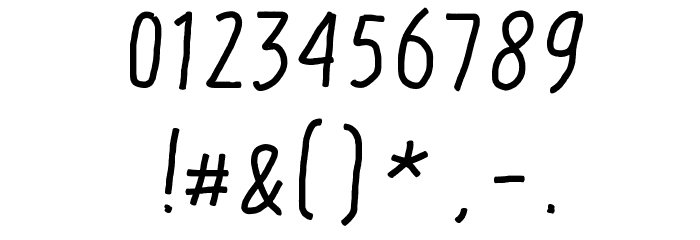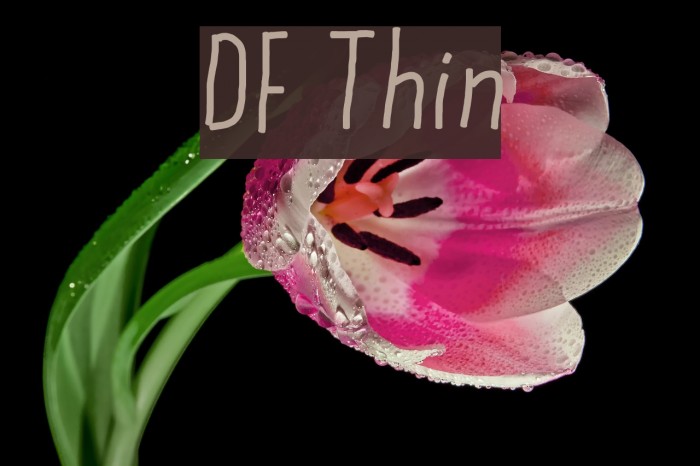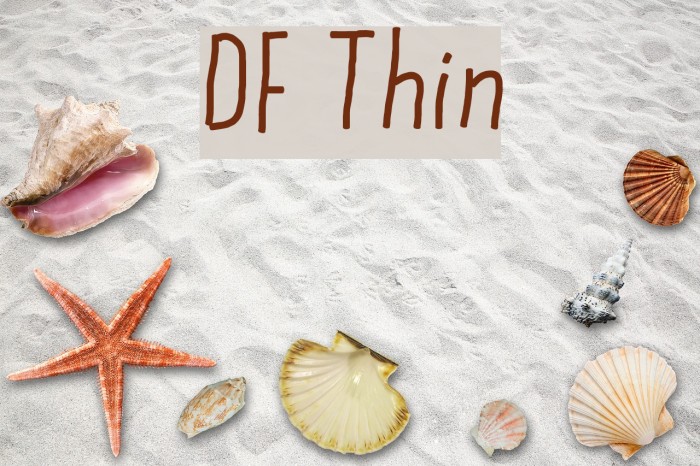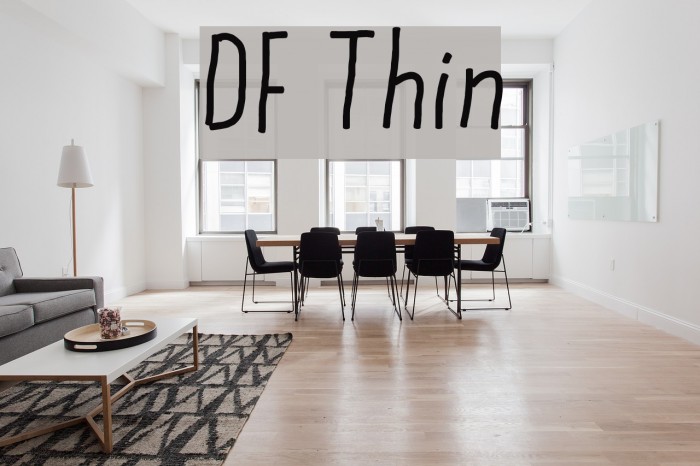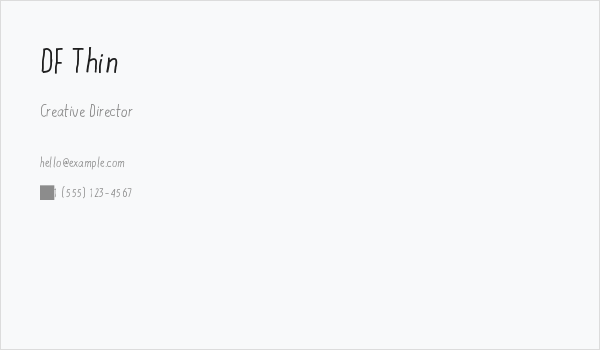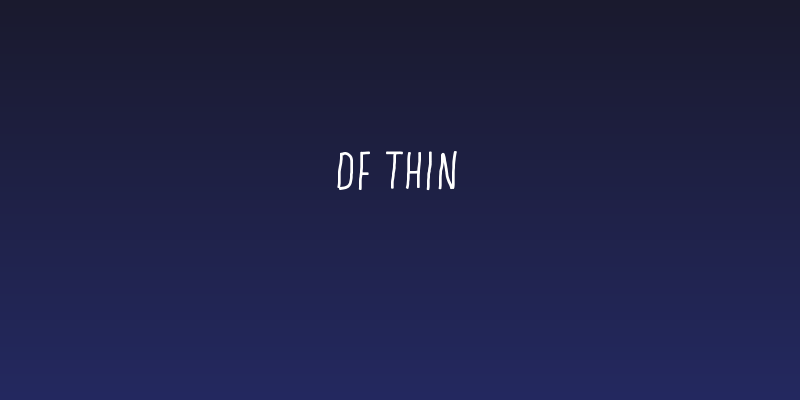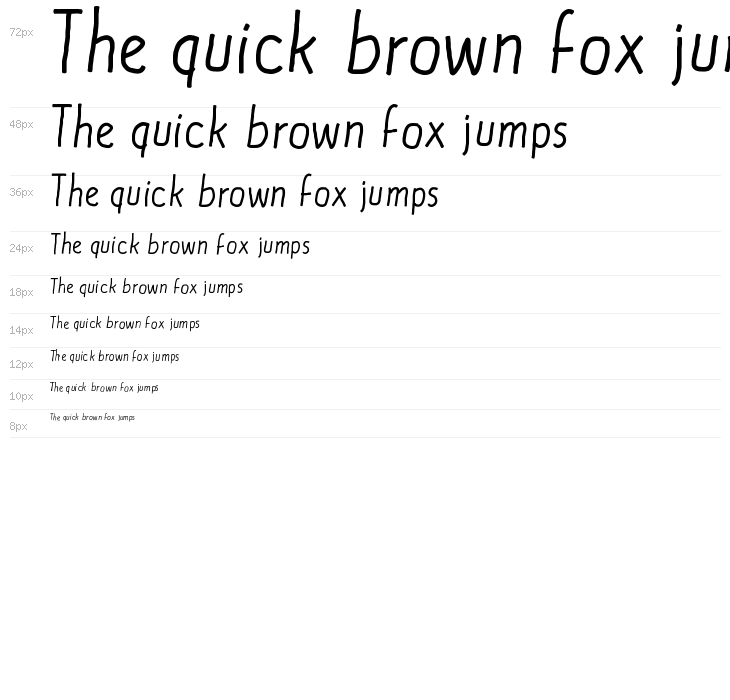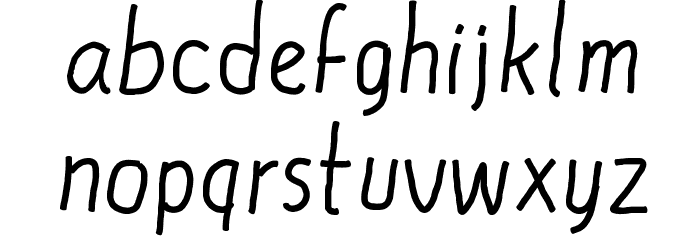
DF Thin Font
DF Thin Description
This font features a hand-drawn, casual style with a playful and informal appearance. The characters are slightly irregular, giving it a natural and organic feel. The strokes are thin and consistent, contributing to a light and airy aesthetic. The uppercase and lowercase letters maintain a cohesive look, while the numerals and special characters complement the overall style. This font's unique charm makes it suitable for projects that require a personal touch.
| Proposed Projects | Ideal for greeting cards, invitations, personal branding, and creative projects that benefit from a handmade feel. |